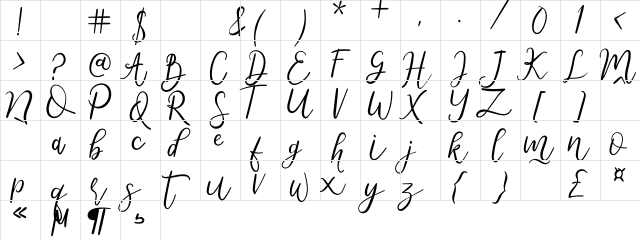
Metteora Regular
| Designer | Haksen Letters |
Design Context for Metteora Typeface
Metteora is a composed and adaptable typeface that performs quietly and consistently across a wide range of design contexts.